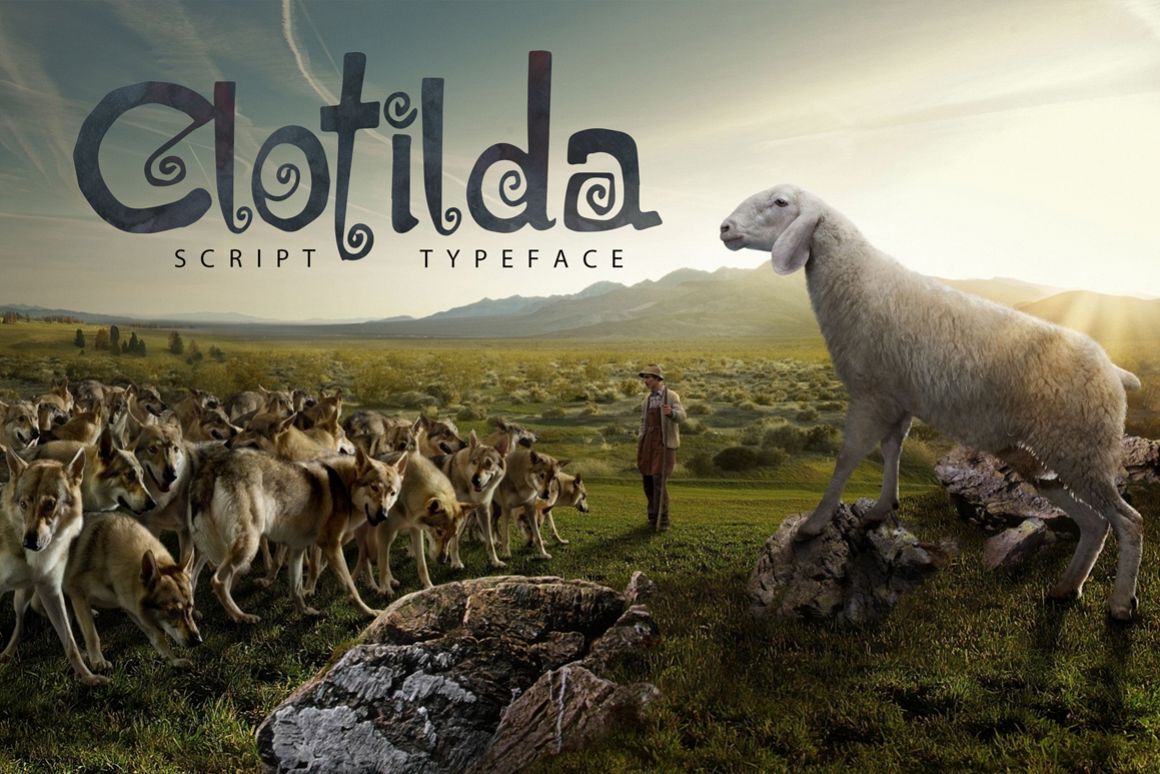
My name is Clotilda
Clotilda.
Clotilda is a unique font created by hand, fabulous for templates or logos with a funny style. Lowercase and uppercase, numbers and webfont.